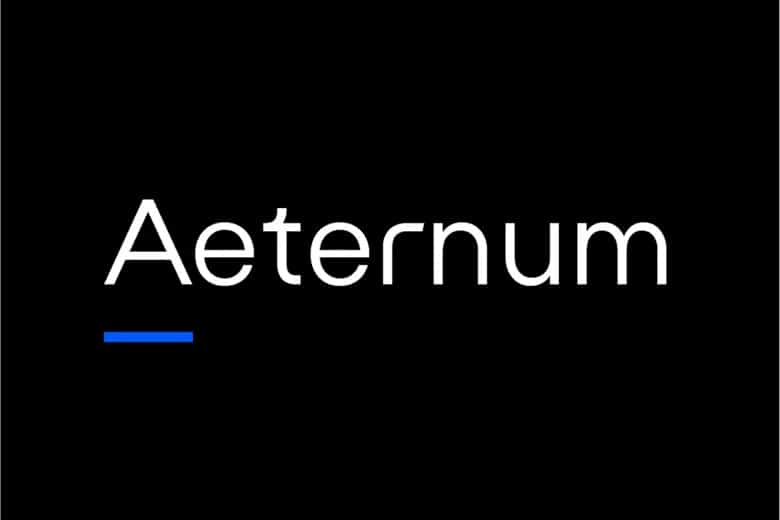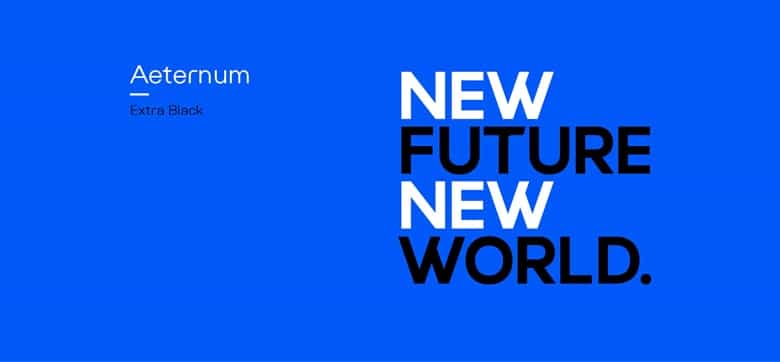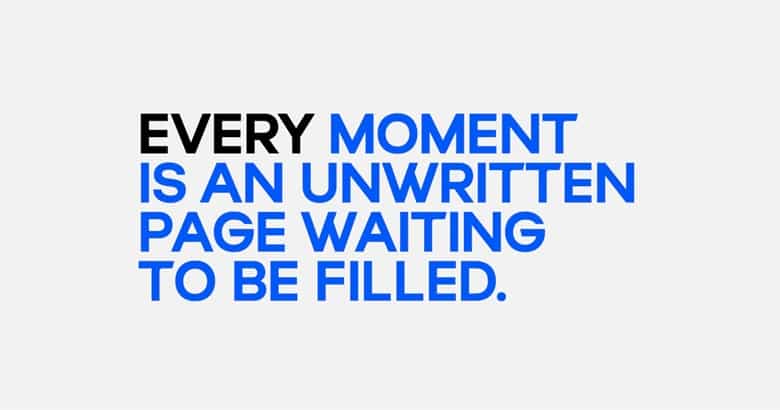
Aeternum is designed to have modern style and clarity. Thanks to its ability to support Cyrillic, it’s ideal when used for UI, signage, posters or printed design. The use of survey shapes adds style and versatility to both digital and print uses. Aeternum shows the best of both worlds by being durable and refined.